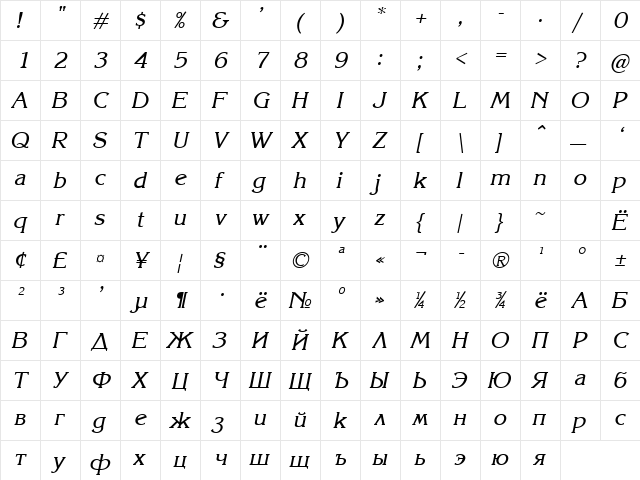
Karelia Italic
Design Context for Karelia Typeface
Karelia is a composed and adaptable typeface that performs quietly and consistently across a wide range of design contexts. The slanted form adds forward momentum and visual energy.
Pro Tip: Try Karelia for annotation and caption copy alongside an upright companion — the contrast in angle creates a dynamic but ordered typographic system.